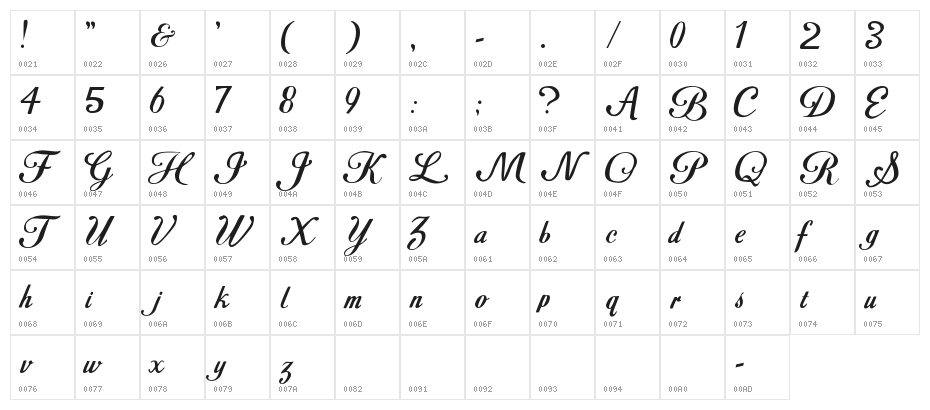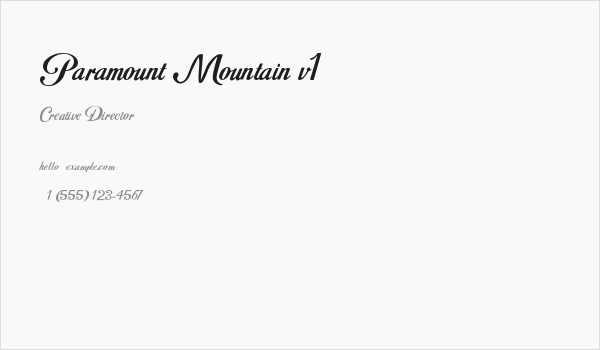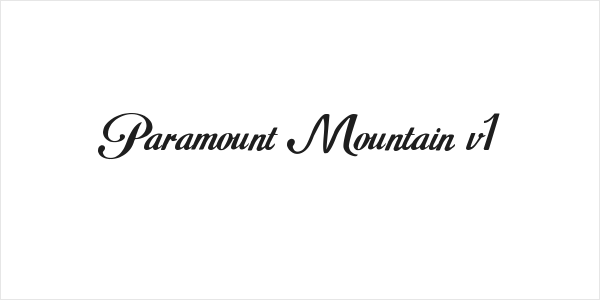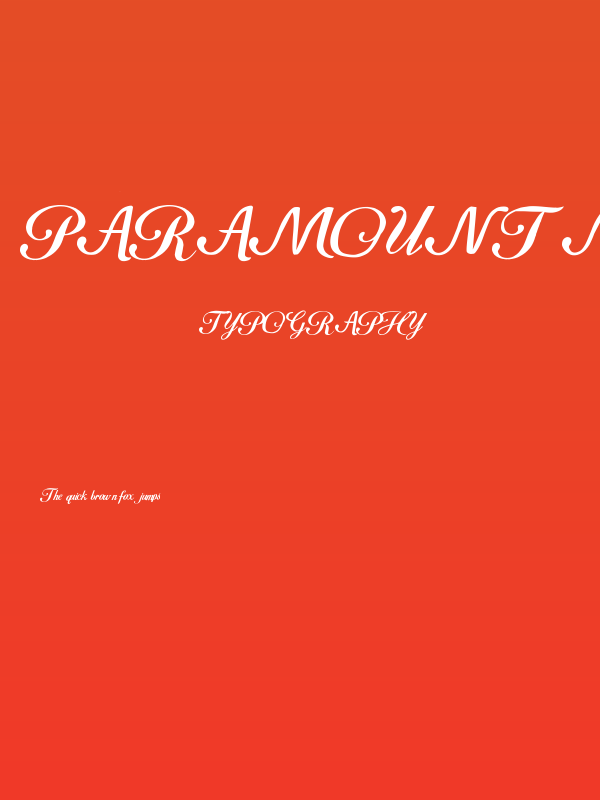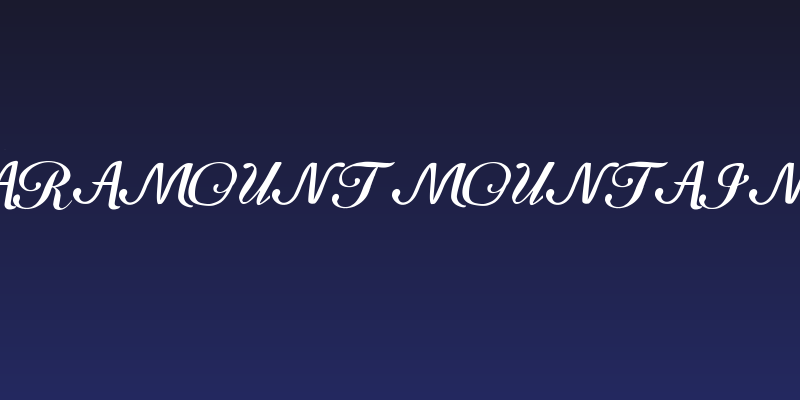
Paramount Mountain v1 Font
Paramount Mountain v1 Description
This font features an elegant and flowing script style, characterized by its smooth, cursive strokes and graceful curves. The uppercase letters are ornate with sweeping lines, while the lowercase letters maintain a consistent, flowing form. The numerals are bold and slightly slanted, adding to the dynamic appearance of the font. Special characters are designed with similar flair, ensuring a cohesive look across all elements. This font exudes sophistication and is ideal for projects that require a touch of elegance and style.
| Proposed Projects | Ideal for wedding invitations, luxury branding, elegant logos, and high-end product packaging. |